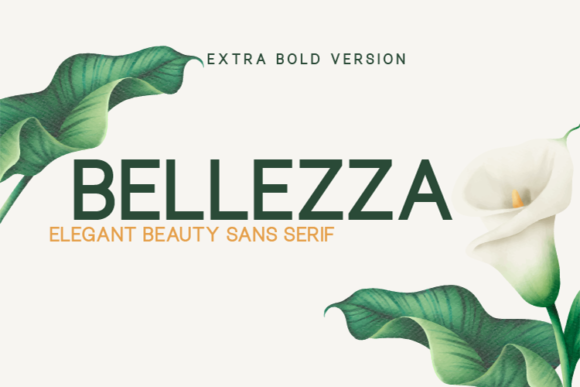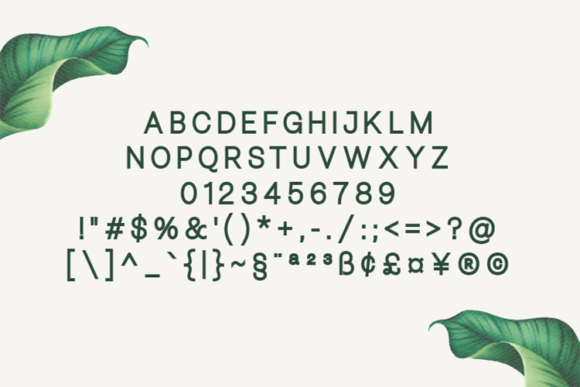
HomeSans Serif FontsBellezza Extra Bold Font Sans Serif Fonts Bellezza Extra Bold Font FacebookTwitterPinterestWhatsApp Bellezza Extra Bold Fonts 1 of 2 About Bellezza Extra Bold Font Bellezza is a modern sans serif with a geometric touch. It’s perfectly suited for graphic design and for display purposes. DOWNLOAD NOW People also explored Astronika Font Groovy Baseball Font Question of Science Font Bella Lolly Font Zapellin Font Himponis Font True Love Milkhouse Font Winsberg Font 202 0 TagsBellezza Extra Bold Font Previous articleBellezza Black FontNext articleBellezza Bold Font LEAVE A REPLY Cancel reply Comment: Please enter your comment! Name:* Please enter your name here Email:* You have entered an incorrect email address! Please enter your email address here Website: Save my name, email, and website in this browser for the next time I comment. Personal Use Free Wordan Personal Use Free Read more about this font Huntry Personal Use Free Read more about this font Moon Light Personal Use Free Read more about this font Choco Shake Font Personal Use Free Read more about this font BLOG Elegant Wedding Invitation Fonts – Handwritten & Script Fonts Elegant Wedding Invitation Fonts Your wedding day is one of the most important moments of your life, and every detail matters—including your invitation design. Our... Free Fonts Risk: Why Free Fonts Can Be Dangerous for Designers Top 7 Google Fonts Alternatives for Faster and Privacy-Friendly Web Design (2025) Using Fonts in Digital Marketing: Tips to Strengthen Your Brand Identity